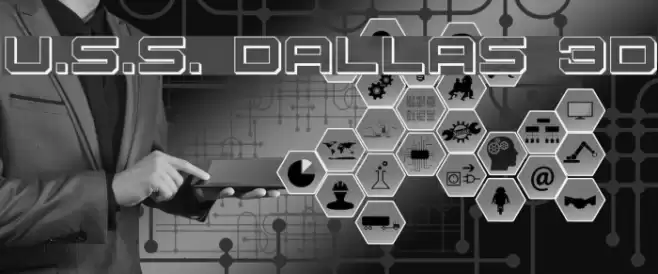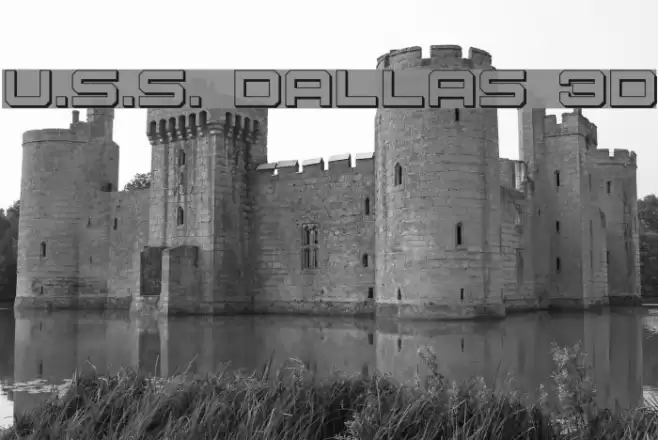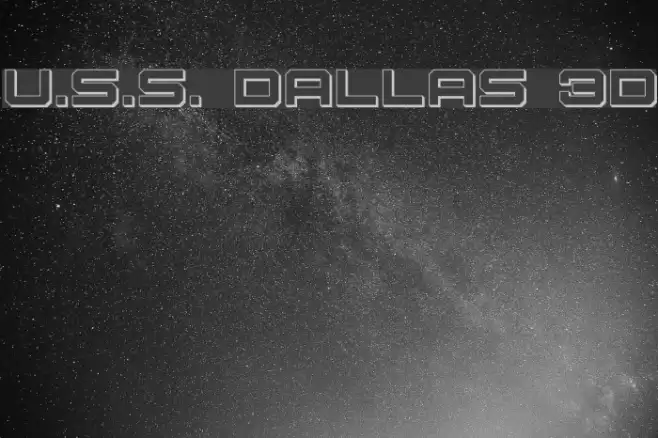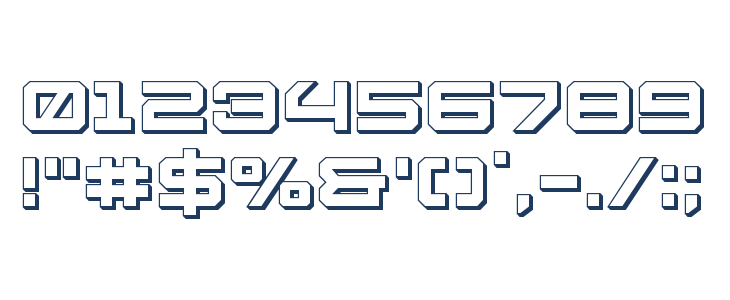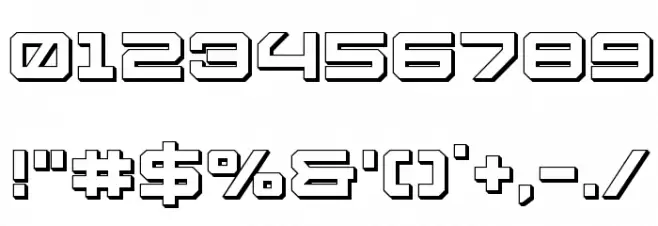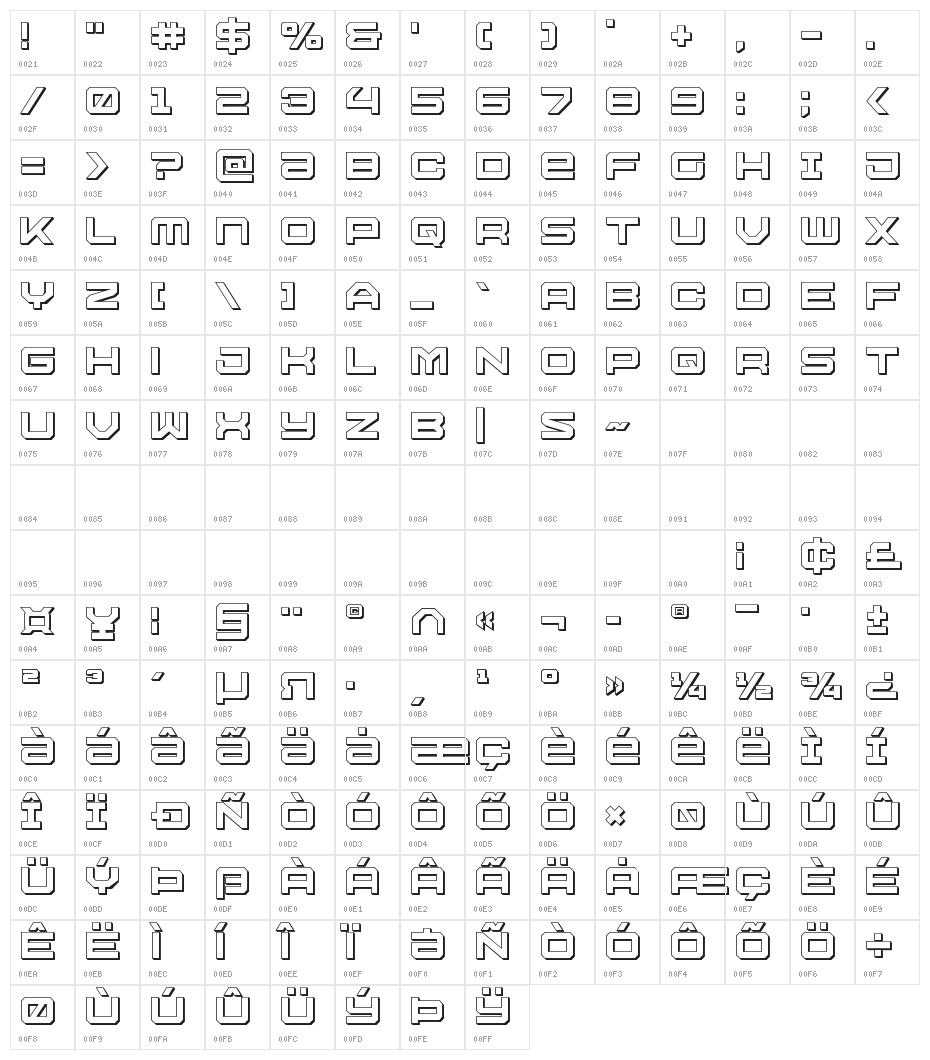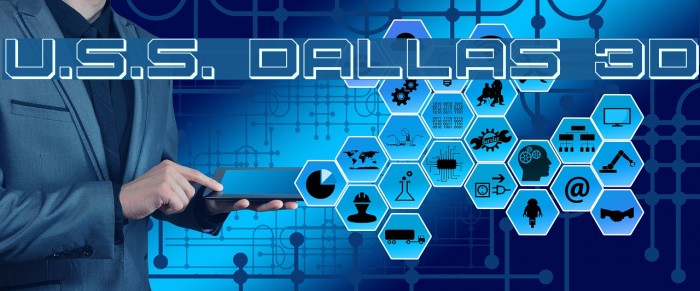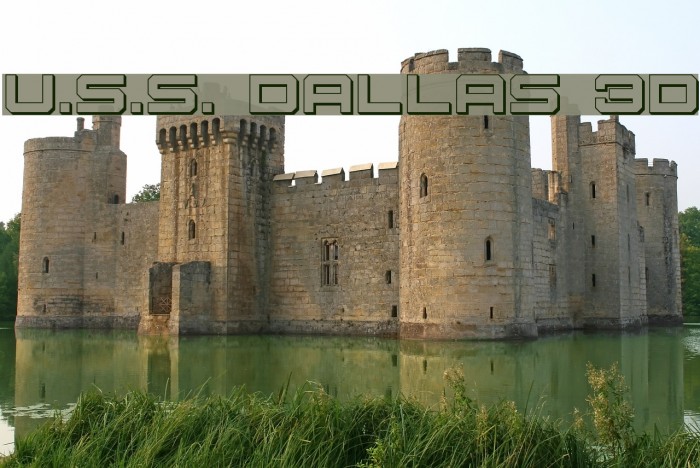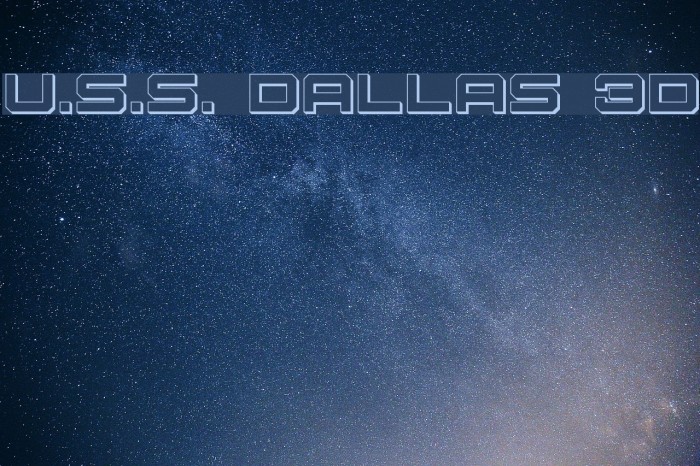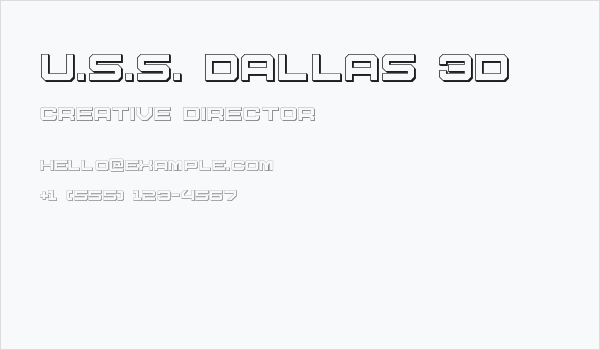
U.S.S. Dallas 3D Font
U.S.S. Dallas 3D Description
This font features a bold, geometric design with a three-dimensional effect. The characters are outlined, creating a sense of depth and structure. Each letter and number is crafted with precision, showcasing a futuristic and industrial aesthetic. The uppercase and lowercase letters maintain a consistent style, with sharp angles and clean lines. The numerals and special characters are equally bold and striking, making them stand out. This font is ideal for projects that require a modern and edgy look, such as technology branding, video game titles, or sci-fi themed designs.
A bold, geometric font with a 3D effect, perfect for modern and industrial designs from Uncategorized fonts.
- Proposed Projects: Technology branding, video game titles, sci-fi themed designs, posters, and logos.